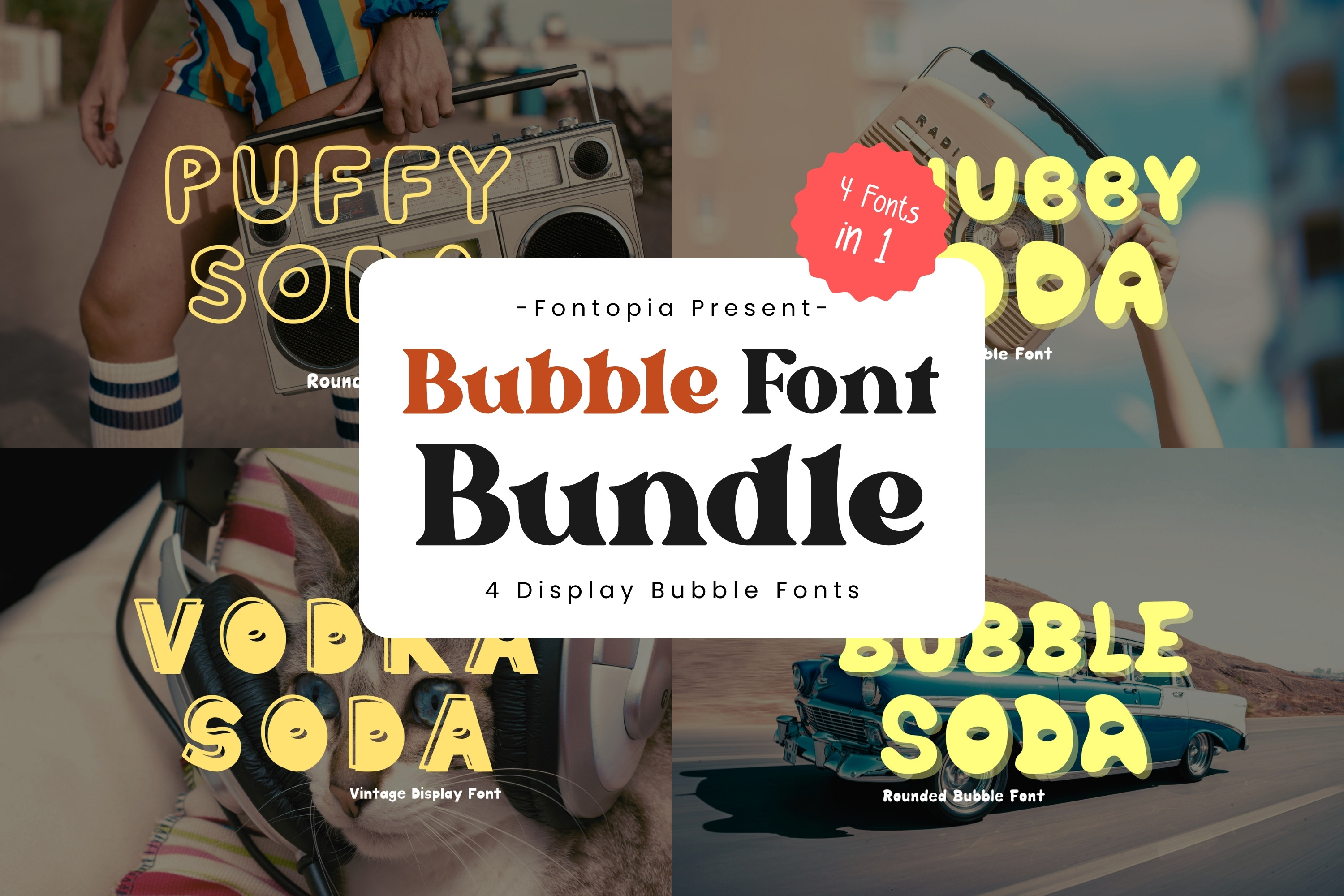
Retro Bubble Handwritten Font bundle
🎉 Soda Bubble Font Collection – 4 Playful Fonts in One Fun Pack!
Say hello to bubbly vibes! This Soda Bubble Font Bundle includes 4 vibrant, playful fonts inspired by retro aesthetics and summertime joy. Perfect for Cricut crafts, children's books, posters, branding, and social media designs.
Chubby Soda – Rounded Bubble Font
Vodka Soda – Bold Vintage Display Font
Puffy Soda – Soft Rounded Font
Bubble Soda – Playful Bouncy Font